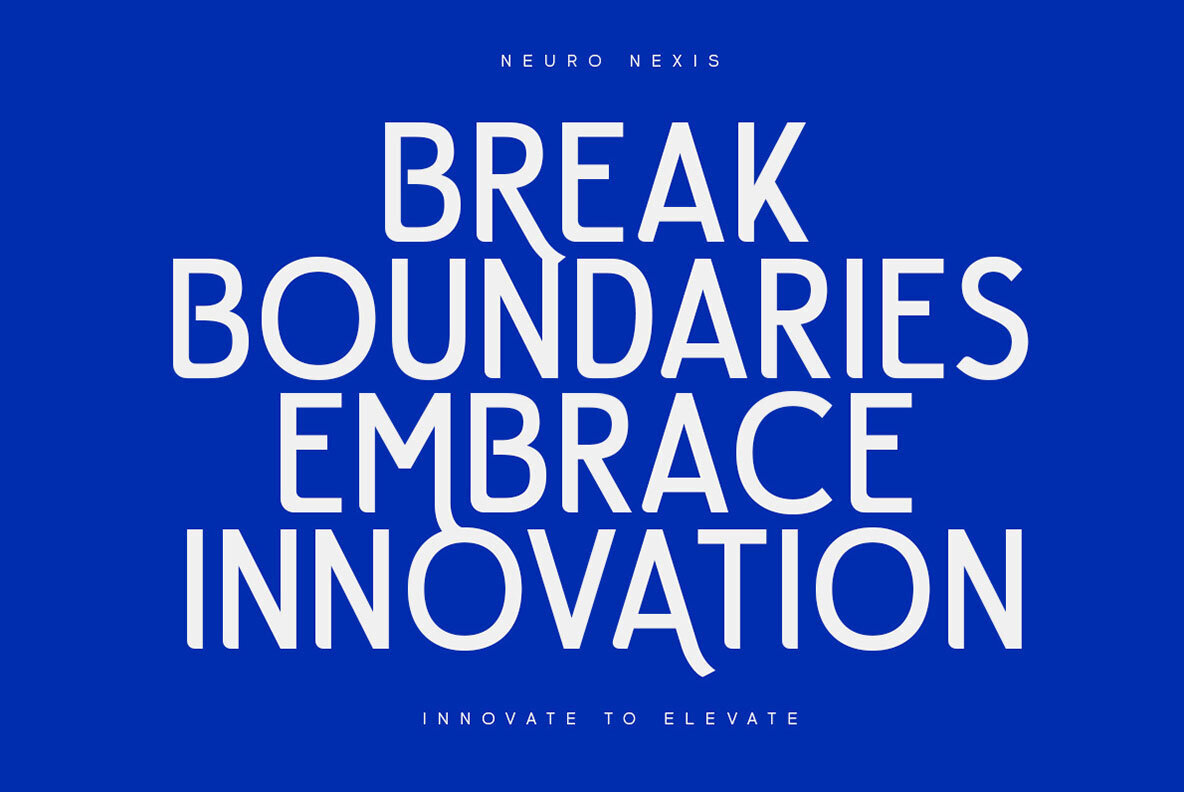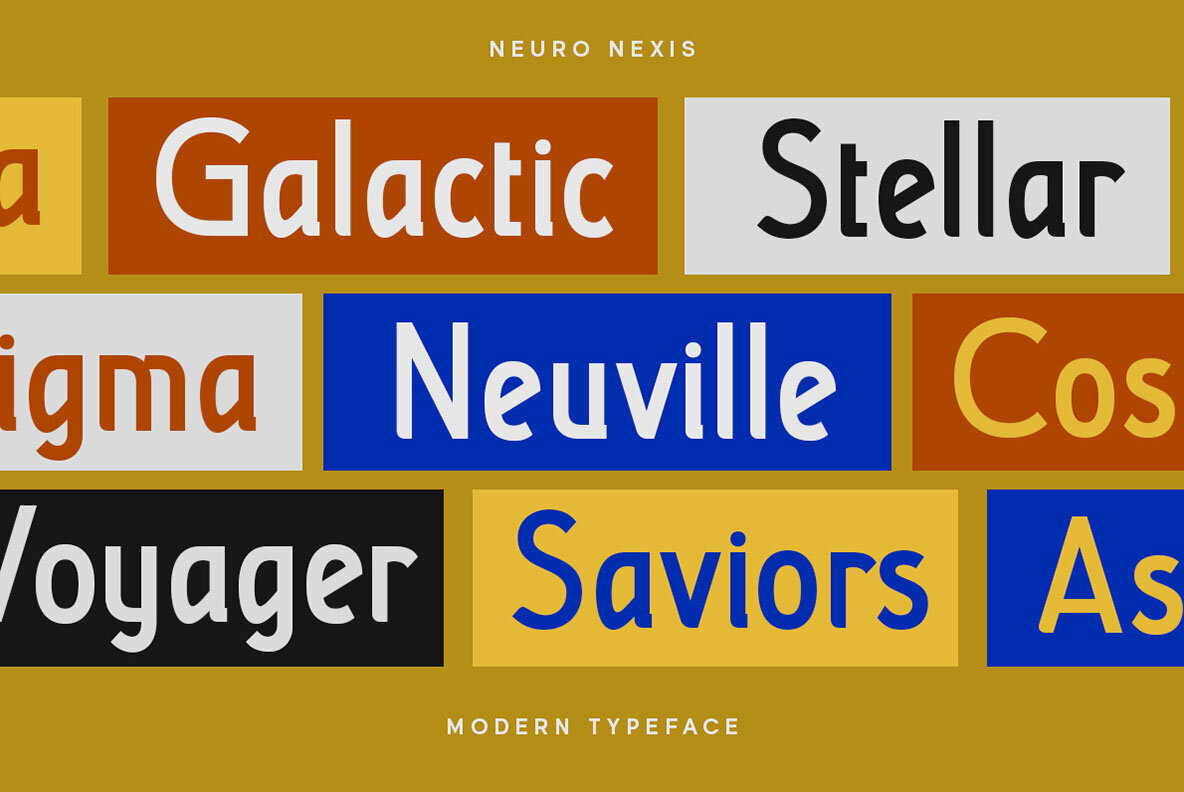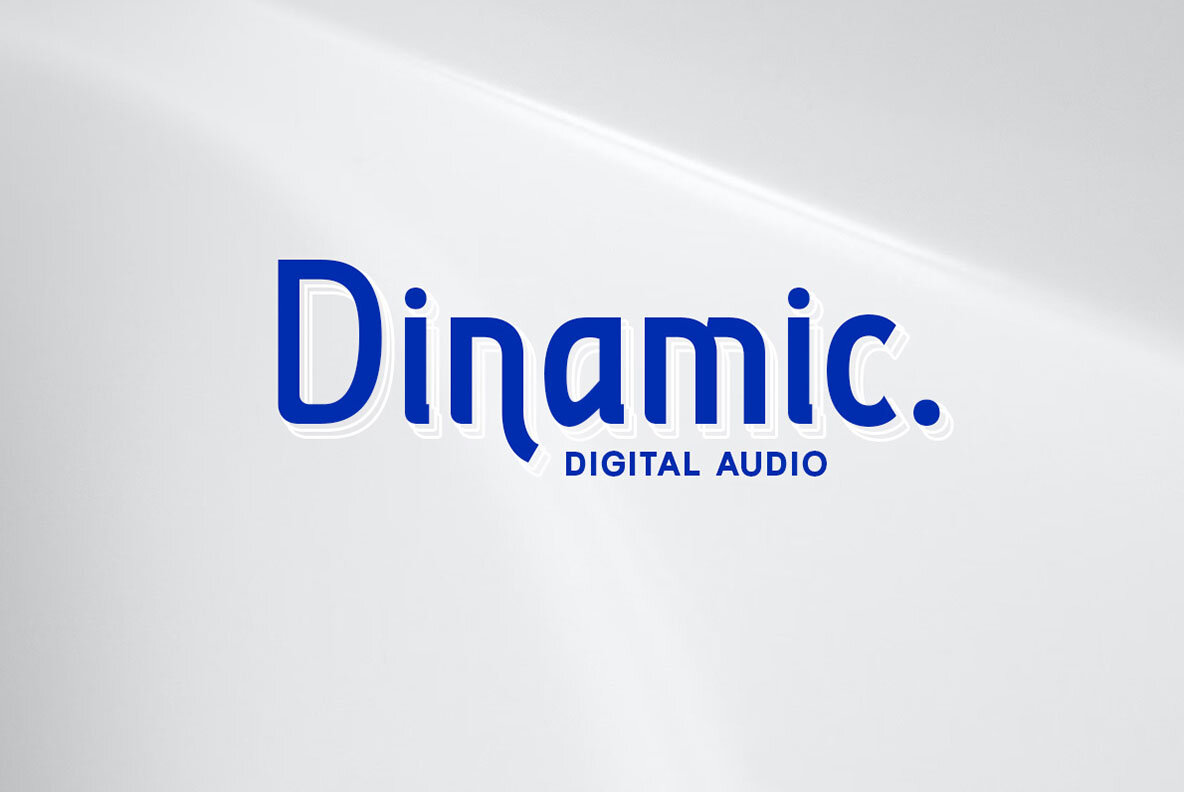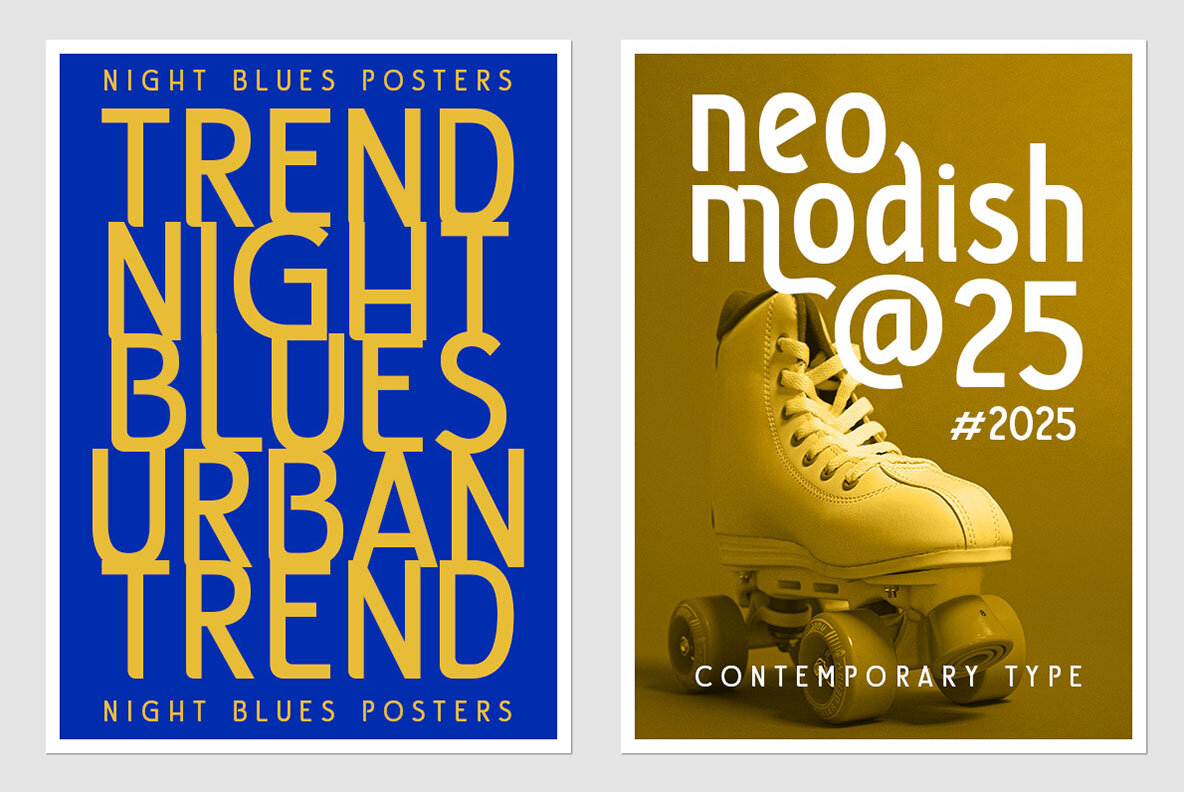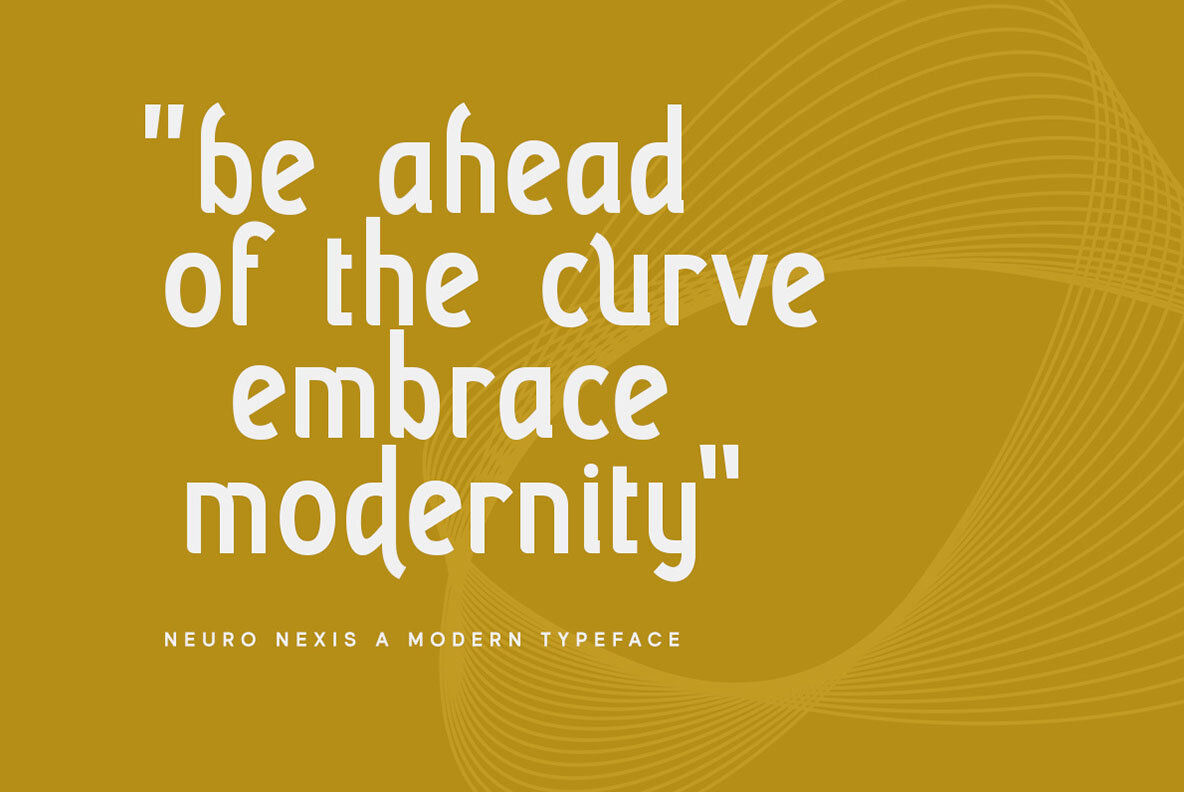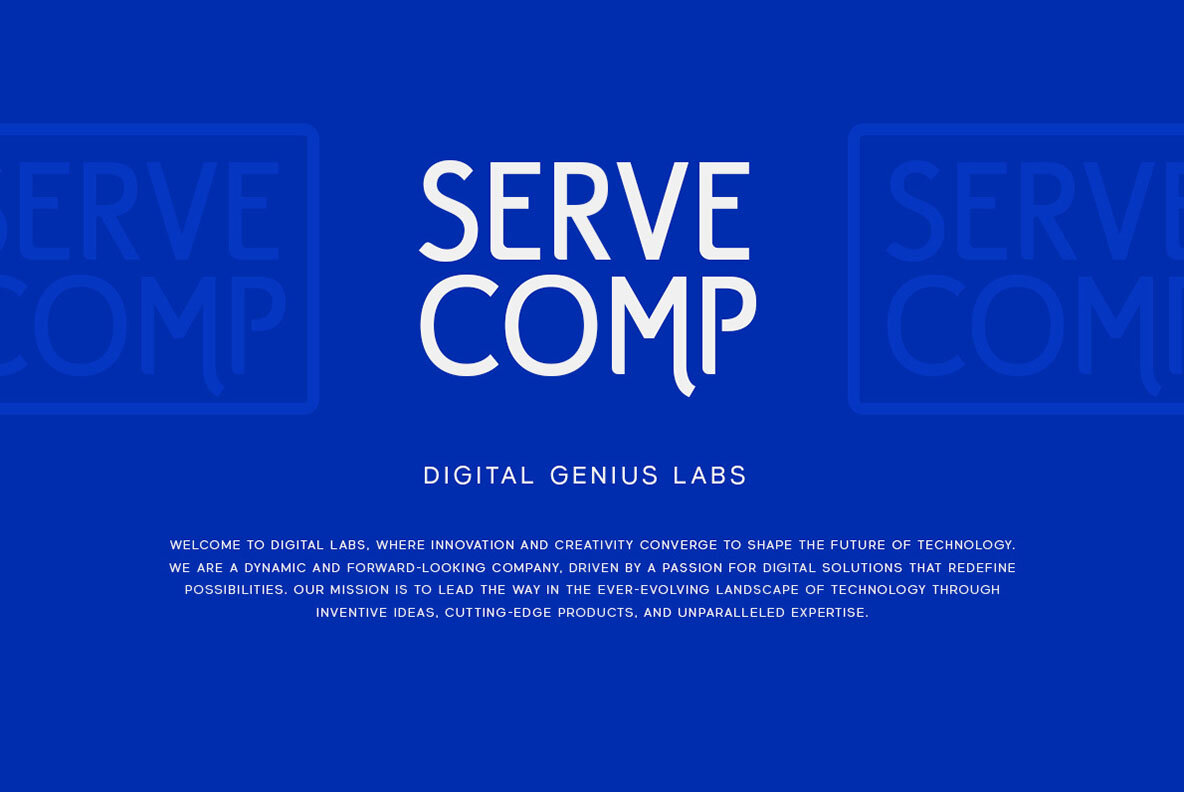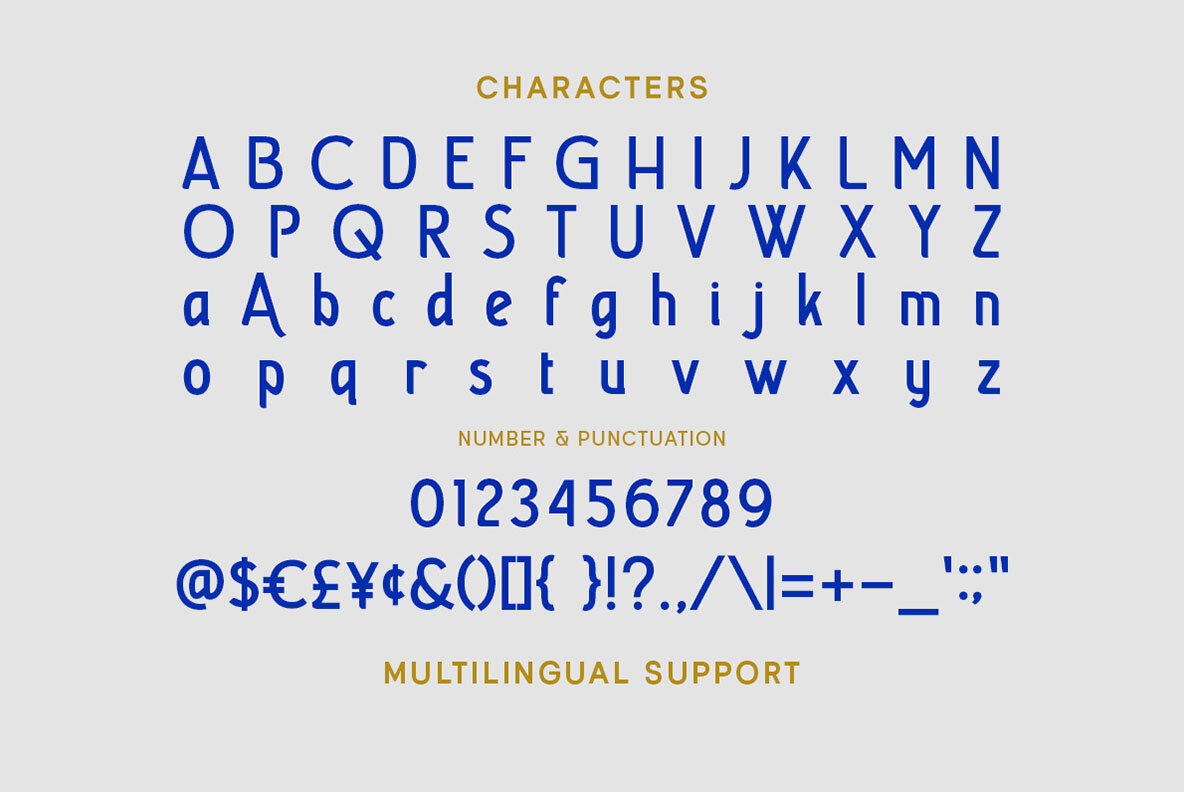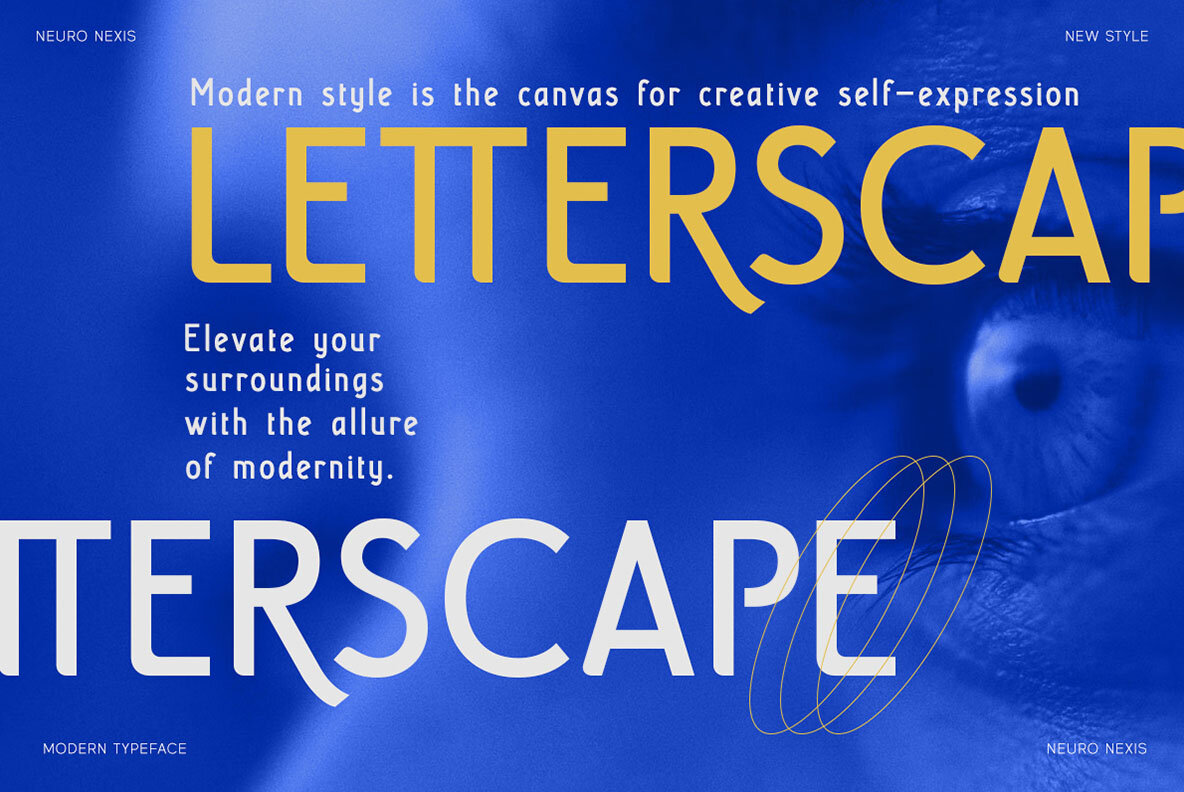
Neuro Nexis Font
Neuro Nexis is a cutting-edge sans serif font characterized by its futuristic design and sleek lines. This versatile font exudes precision and efficiency, making it an excellent choice for projects that demand modernity and a forward-thinking aesthetic. For optimal use, it is recommended to utilize software that supports OpenType features and Glyphs panels, such as many Adobe applications and Corel Draw. This will allow you to access all available glyph variations and enhance your design capabilities.Neuro Nexis: Futuristic Sans Serif for Modern Design